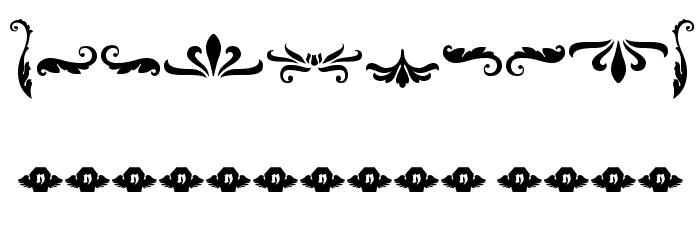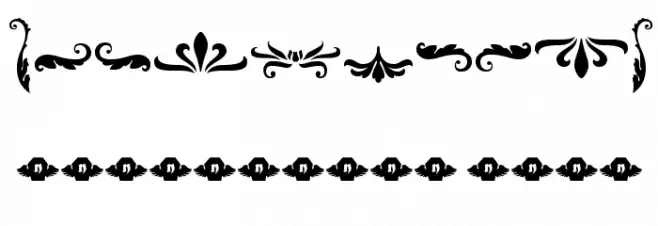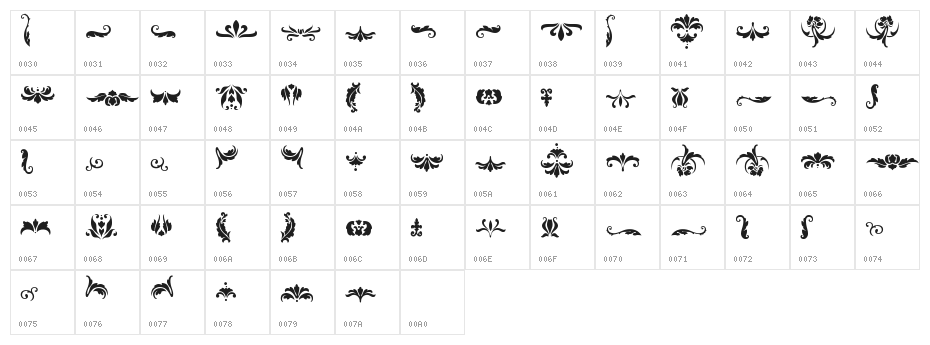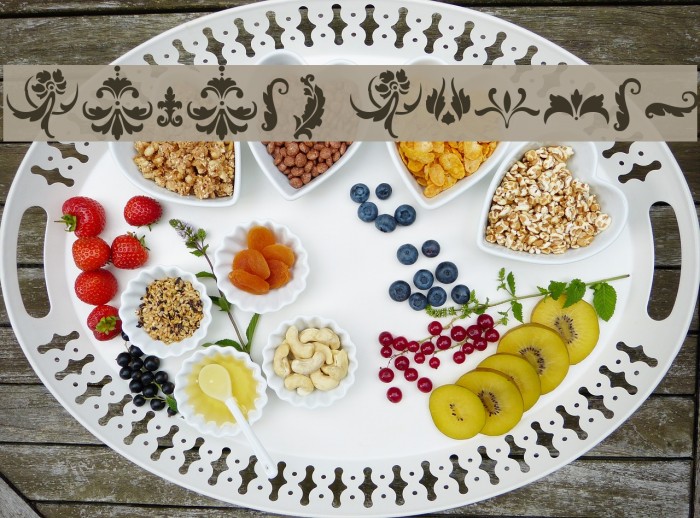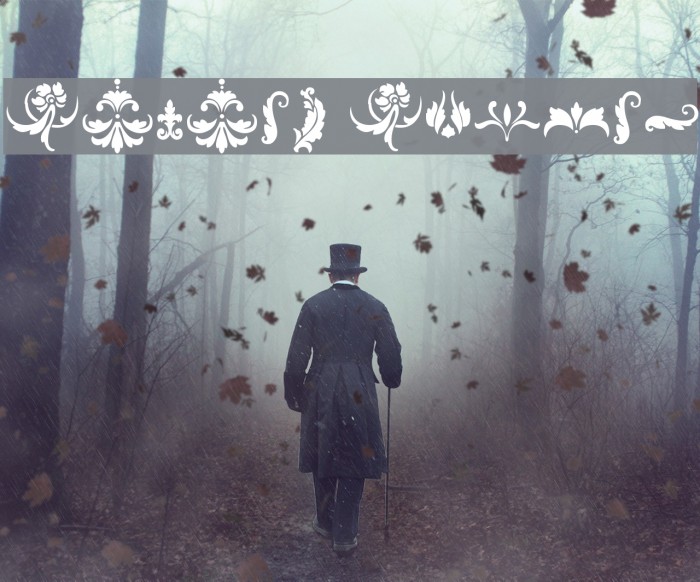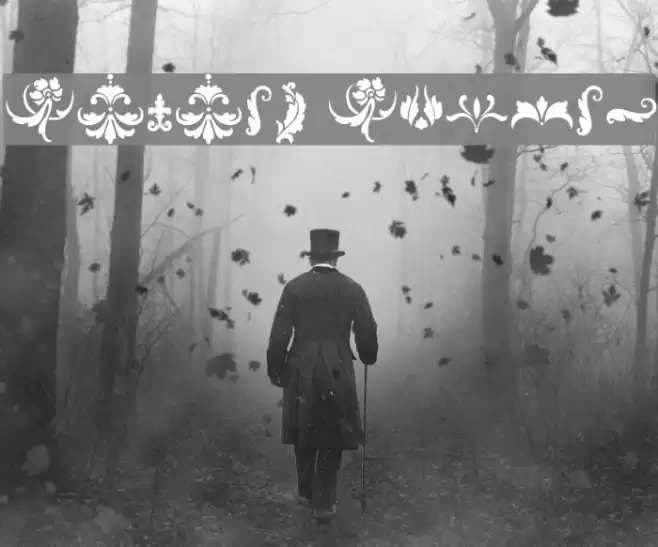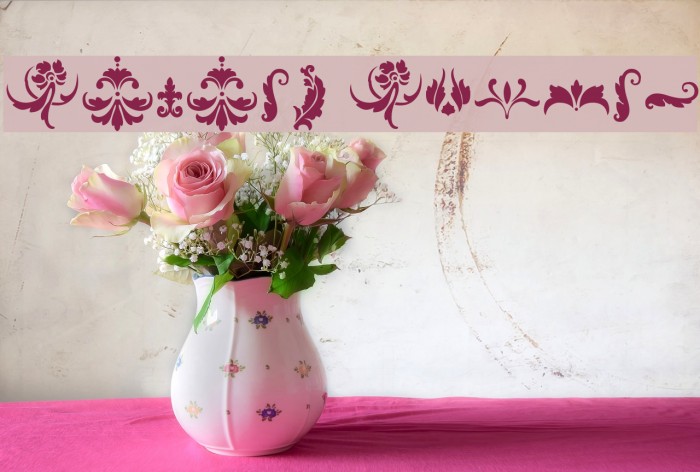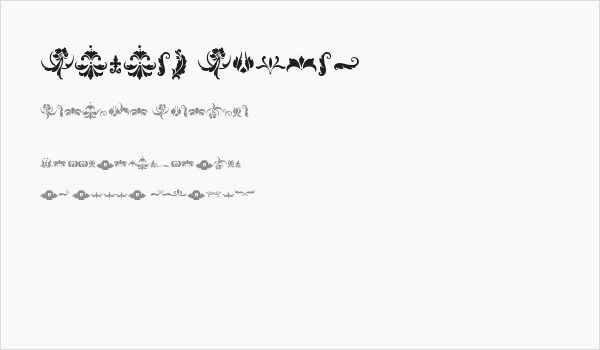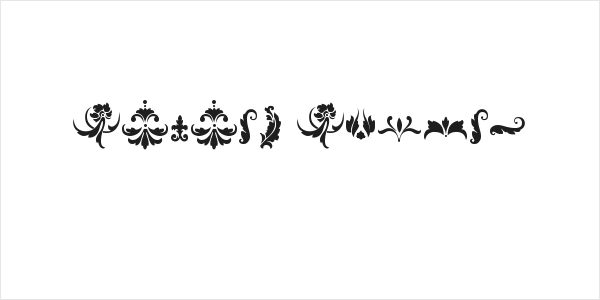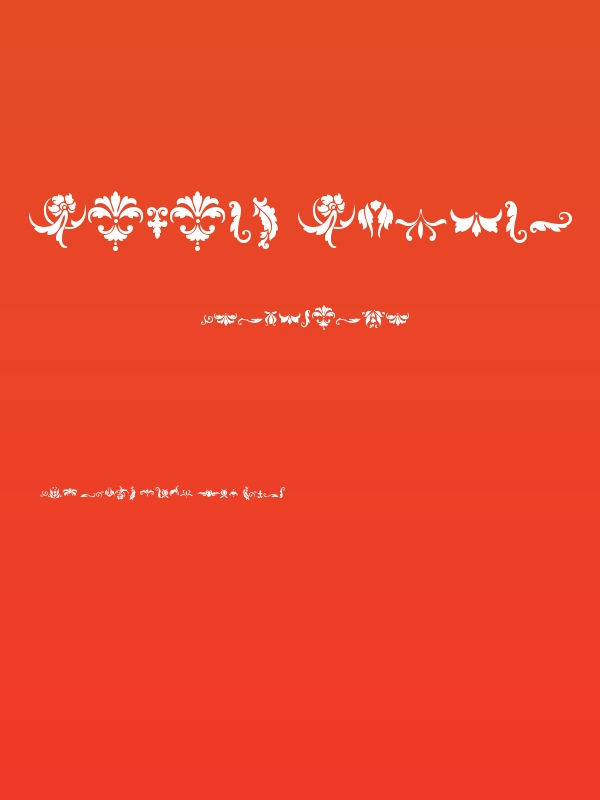
Damask Dings1 Font
Damask Dings1 Description
This collection features an array of intricate ornamental designs inspired by traditional damask patterns. Each symbol is crafted with elaborate details, showcasing symmetrical floral and foliage motifs that evoke a sense of elegance and sophistication. The designs are reminiscent of classic textile patterns, often used in luxurious fabrics and wallpapers. These elements can be seamlessly combined to create borders, frames, or decorative accents, adding a touch of refinement to any project. The overall aesthetic is timeless, making it suitable for a variety of applications where a classic and ornate style is desired.
| Use Case | Decorative elements, Borders, Frames |
| Proposed Projects | Ideal for wedding invitations, luxury branding, packaging design, and decorative borders. |